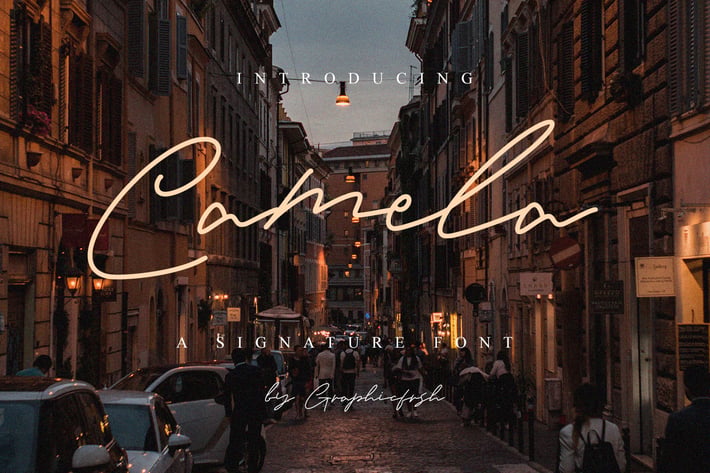
Camela - Beauty Signature Font
Camela - Beauty Signature Font. It comes with an elegant, cute and feminine style which is perfect to make any design stand out! This font is perfect for branding, wedding invites, magazines, mugs, business cards, quotes, posters, and more.
Camela Type Features:
- Numerals & Punctuations
- Suitable for Headlines, Logotypes, Signs, Posters, Letterhead, T-Shirt and many more.